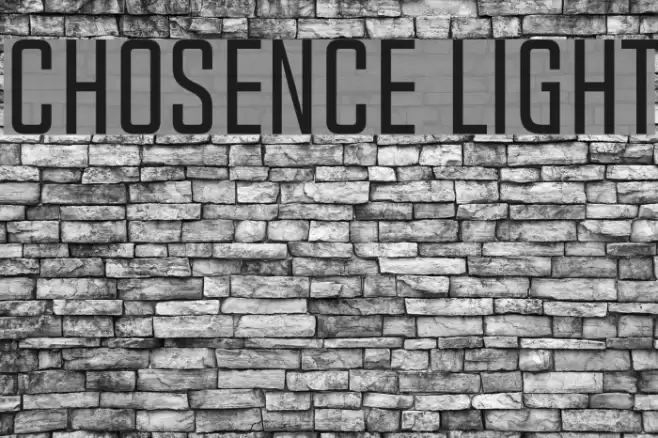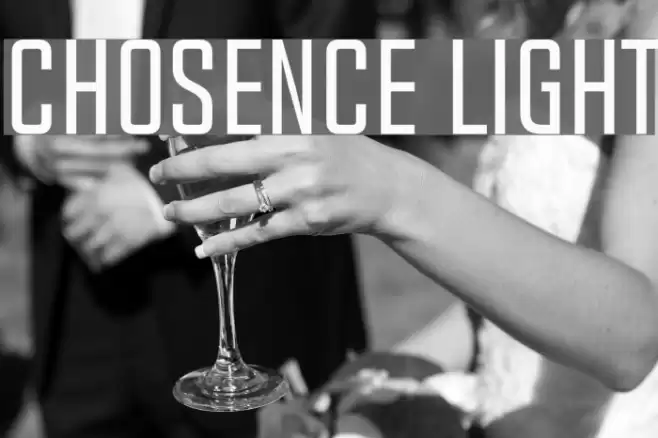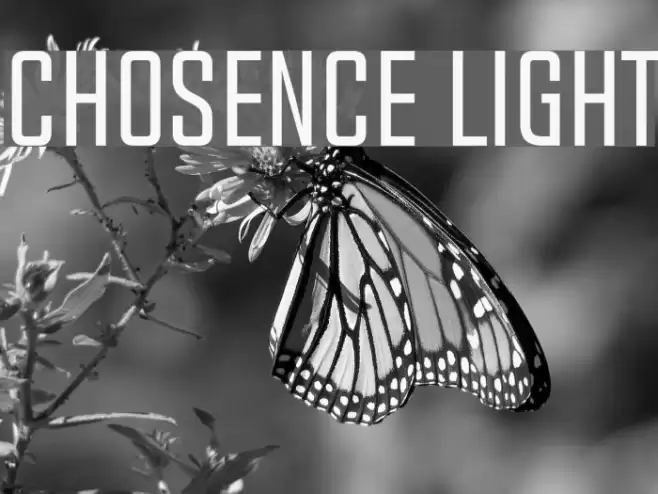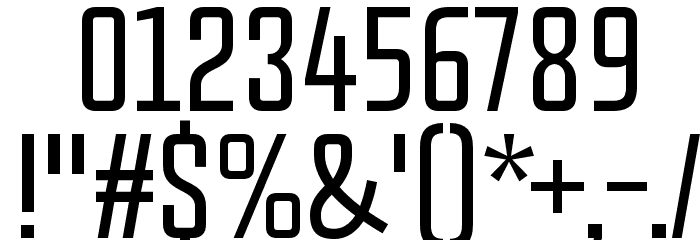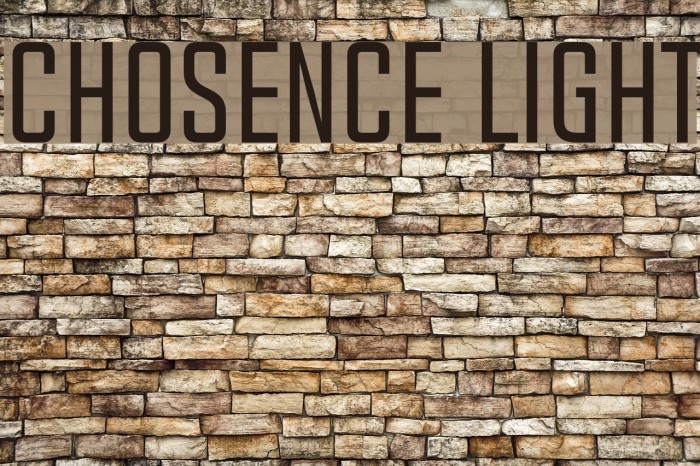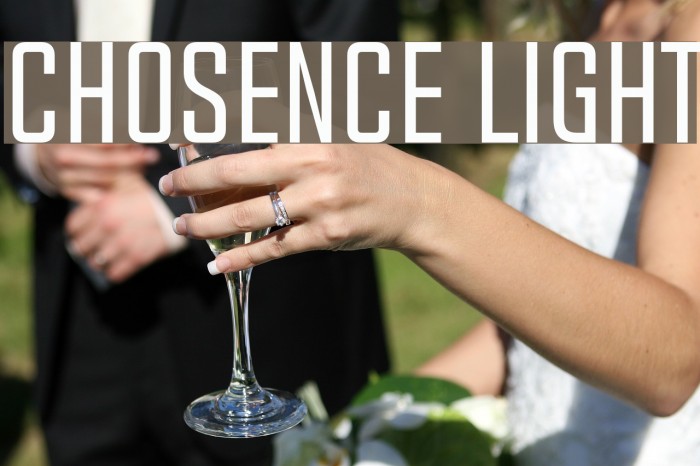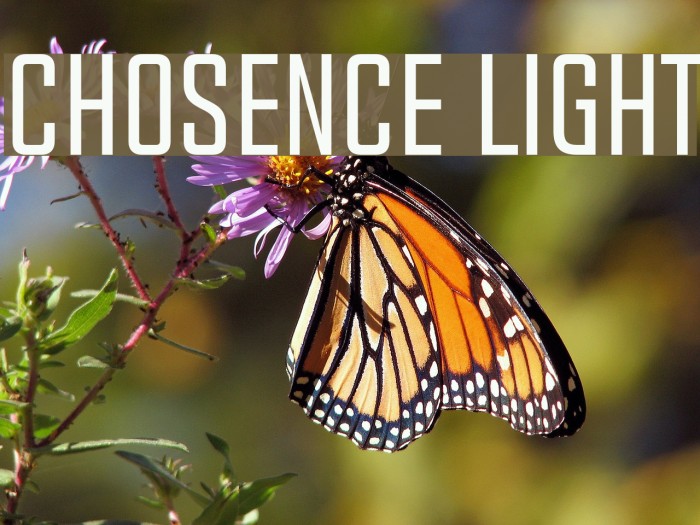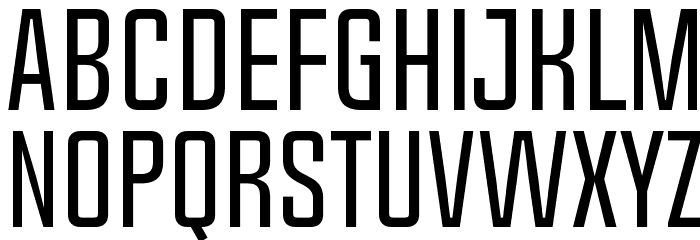
Chosence Light Font
Chosence Light Description
This font features a clean and modern sans-serif design with a geometric structure. The characters are tall and narrow, providing a sleek and contemporary appearance. The uniform stroke width throughout the typeface gives it a cohesive and balanced look. The uppercase and lowercase letters maintain a consistent style, with slightly rounded edges that soften the overall aesthetic. The numerals are clear and legible, matching the height and style of the alphabetic characters. Special characters are included, maintaining the same design principles, making this font versatile for various applications.
A modern, geometric sans-serif font with a clean and narrow design from Uncategorized fonts.
- Proposed Projects: Ideal for branding, editorial design, web design, and advertising where a modern and sleek appearance is desired.